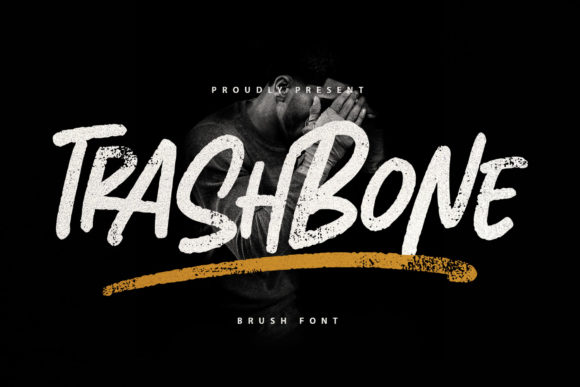
Usher in a new era of visual aesthetics with Trashbone, the bold and rugged display font that's ready to unleash your creative potential. Carved with meticulous detail, each letter in this font exudes a raw, organic energy, reminiscent of the untamed spirit of graffiti.
Awaken the rebel within you and embrace the power of Trashbone. Its strong, unapologetic presence commands attention, demanding to be seen and heard. Whether you're designing eye-catching logos, striking headlines, or rebellious posters, Trashbone will transform your words into captivating works of art.
Immerse yourself in the Latin Script, a universe of languages rich in history, culture, and diversity. Trashbone's unwavering compatibility with this script ensures seamless integration with projects that span geographical and linguistic boundaries. Unleash your multilingual creativity and connect with audiences worldwide.
Step out of the ordinary and delve into a world where boldness thrives. Trashbone's daring personality shines through in every curve and stroke, breaking free from the mundane and inviting you to embrace the unconventional. Dare to be different, to make a statement that echoes your unique style and perspective.
Join forces with Trashbone and unlock a limitless realm of design possibilities. This font is an invaluable asset to your creative arsenal, ready to elevate any project with its raw, urban edge. Be it branding, marketing, or personal expression, Trashbone will infuse your work with an unforgettable touch that resonates with audiences.